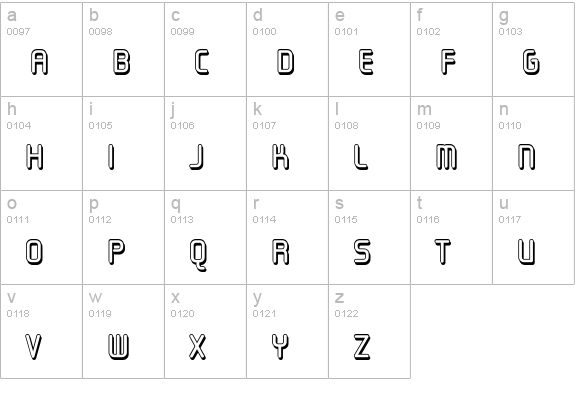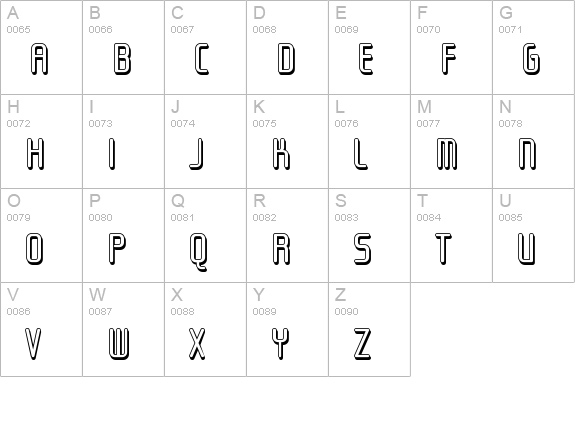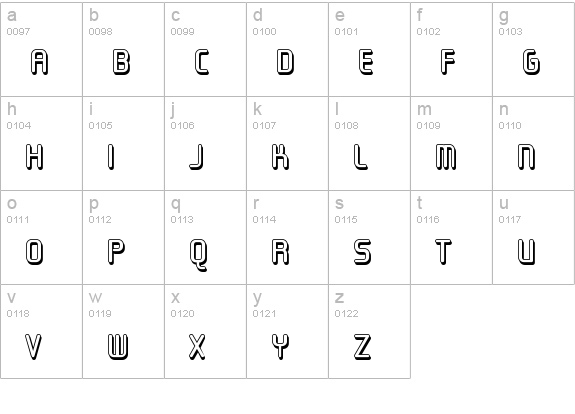
Sugarskin BTN Shadow Small Cap Font Details
Sugarskin BTN Shadow Small Cap font is a modern and elegant typeface that exudes sophistication and charm. Its delicate shadows add a touch of depth and dimension to any design project. This unique font is perfect for adding a touch of elegance to invitations, branding, packaging, and more. What makes Sugarskin BTN Shadow Small Cap font even more appealing is that it is available for free download at FontsMarket.com. You can easily access this stylish font and elevate your design projects with its timeless appeal. Don't miss out on the opportunity to add this versatile font to your collection and bring a touch of sophistication to your creations. Download Sugarskin BTN Shadow Small Cap font today and let your creativity shine!